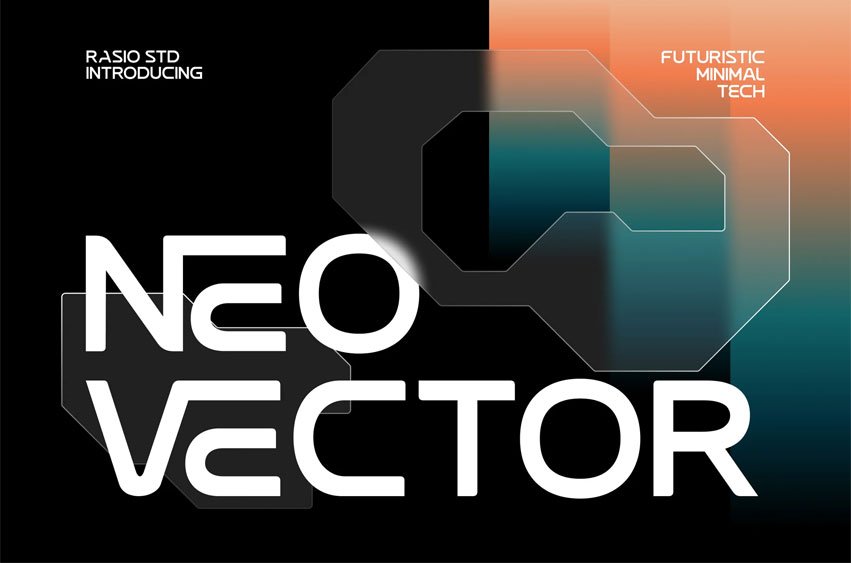
Neo Vector Font is a sleek and futuristic display font with geometric letterforms and refined minimal aesthetics. Designed for tech-forward branding, UI/UX design, sci-fi posters, and cutting-edge digital content, this typeface merges clean structure with innovative character shapes and experimental ligatures.
With an all-uppercase character set, numbers, punctuation, and modern ligatures like “NE”, “LO”, and “SP”, Neo Vector brings a sci-fi edge to branding, packaging, and editorial work. Its futuristic flow and minimalist balance make it ideal for logos, app interfaces, startup websites, and concept visuals.
Relevance and Use Cases is perfect for technology branding, AI startups, science fiction posters, user interfaces, tech product packaging, app design, futuristic event posters, game UI, VR dashboards, coding websites, developer tools, clean digital presentations, tech blog headers, and digital magazines.